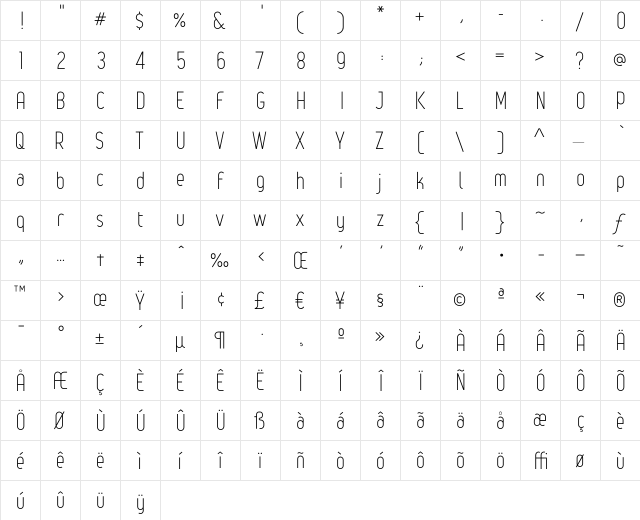
Leger-Light Regular Font Preview
Leger-Light Regular
Design Context for Leger-Light Typeface
Leger-Light takes a measured approach to typography — its balanced proportions and neutral character make it a reliable workhorse for both digital and print work. Its slender proportions lend an understated elegance to any composition.